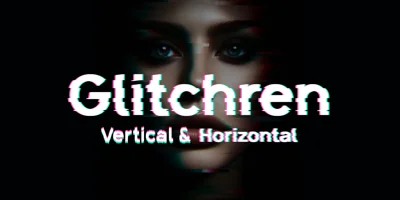
Glitchren Font
Looking for a bold, glitch-inspired typeface that screams cyberpunk and digital rebellion? Glitchren Font is perfect for tech projects, music album covers, gaming graphics, and edgy branding that demand a futuristic and distorted look. Its broken, pixelated style creates a unique visual impact that captures attention instantly.
Whether you’re designing event posters, digital art, or innovative logos, Glitchren Font adds a cutting-edge vibe to your typography.